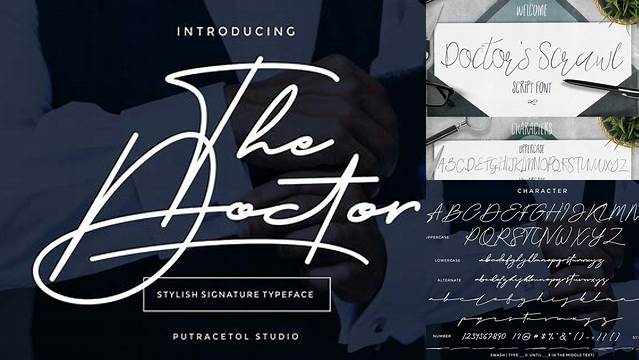
Doctor Handwriting Font Generator: Free & Realistic
Hey guys! Ever wondered how to create that illegible, yet somehow authoritative, doctor's handwriting? Well, you're in luck! We're diving deep into the world of doctor handwriting font generators, exploring how to get that authentic look for free. Letβs get started!
Understanding the Allure of Doctor Handwriting
Why are we so fascinated by doctor handwriting? Is it the mystery, the implied intelligence, or just the sheer unreadability? Whatever the reason, the distinctive style has become a cultural icon. A doctor handwriting font generator lets you tap into that mystique. You can now craft humorous memes, create unique invitations, or even design novelty documents with a touch of medical flair. Think about it β a font that instantly adds a layer of quirky authority to anything you type. This isn't just about mimicking messy writing; it's about capturing a cultural phenomenon and using it creatively.
Free Doctor Handwriting Font Generators: A Deep Dive
Alright, letβs get practical. Where can you find these free doctor handwriting font generators? The internet is your friend, but beware of shady sites! Look for reputable font websites that offer a preview of the font before you download it. Many sites offer fonts that closely resemble the stereotypical doctor's scrawl, allowing you to test them out before committing. Be sure to check the licensing terms β some fonts are free for personal use but require a commercial license for business applications. Exploring different generators and comparing their outputs will help you find the perfect font to match your desired level of unreadability. Remember, the goal is authenticity β you want it to look like a real doctor wrote it, not a robot!
How to Use a Doctor Handwriting Font Effectively
So you've got your font β now what? Using a doctor handwriting font effectively is all about context. Slapping it on a serious business proposal probably isn't the best idea. However, it can be hilarious for party invitations, gag gifts, or even as a quirky element in a personal blog. Think about the message you're trying to convey. Are you aiming for humor, nostalgia, or a touch of irreverence? The font should complement the overall tone and purpose of your content. Don't overuse it β a little goes a long way. A full document in doctor handwriting might be overwhelming and, ironically, less impactful than a strategically placed headline or quote.
Creating Realistic Doctor Handwriting: Tips and Tricks
Want to take your doctor handwriting game to the next level? Try these tips and tricks! First, consider varying the font size slightly to mimic the natural inconsistencies of handwriting. Add a touch of slant or tilt to your text for a more authentic look. Experiment with different levels of boldness or weight to create emphasis. You can even introduce subtle imperfections, such as slightly uneven spacing or overlapping letters. These small details can make a huge difference in the overall realism of your generated handwriting. Remember, real handwriting isn't perfect, so embrace the imperfections to achieve a truly convincing effect.
Doctor Handwriting Font for Medical Professionals: Ethical Considerations
Now, let's talk about ethics. If you're a medical professional, using a doctor handwriting font to create official documents is generally a bad idea. Clarity and accuracy are paramount in healthcare, and deliberately making your writing illegible could have serious consequences. However, there might be appropriate uses in internal communications, training materials, or even as a fun element in a staff newsletter. The key is to consider the potential impact on your audience and ensure that your use of the font doesn't compromise patient safety or professional standards. When in doubt, err on the side of clarity and legibility.
The Psychology Behind Illegible Handwriting
Ever wonder why doctor's handwriting is so notoriously bad? There are a few theories. Some say it's due to the sheer volume of notes they have to take, leading to rushed and sloppy writing. Others suggest it's a form of shorthand developed over years of medical training. And then there's the more cynical view that it's a deliberate attempt to keep patients in the dark! Whatever the reason, the phenomenon has a psychological impact. Illegible handwriting can create a sense of mystery and authority, making the writer seem more knowledgeable and important. It can also be frustrating and confusing, leading to misinterpretations and errors.
Doctor Handwriting Font vs. Cursive: What's the Difference?
While both can be difficult to read, doctor handwriting font and cursive aren't the same. Cursive is a specific style of handwriting where letters are connected, while doctor handwriting font is more of a general term for messy, illegible writing often associated with medical professionals. A doctor handwriting font might incorporate elements of cursive, but it's typically characterized by its lack of clarity and consistent form. Think of it this way: cursive is a deliberate style of writing, while doctor handwriting is often the result of speed, pressure, and perhaps a touch of caffeine.
Doctor Handwriting Font and Pop Culture
Doctor handwriting has become a staple in pop culture, often used for comedic effect. You'll see it in movies, TV shows, and cartoons, typically as a shorthand for complex medical jargon or as a visual gag about the unreadability of doctor's notes. This cultural representation reinforces the stereotype and contributes to the enduring fascination with doctor handwriting. The font itself has become a shorthand, instantly conveying a sense of medical authority (or at least, the appearance of it).
Doctor Handwriting Font for Graphic Design
Looking to add a unique touch to your graphic design projects? A doctor handwriting font can be a surprisingly effective tool. Use it sparingly to create eye-catching headlines, add a touch of whimsy to your illustrations, or even design custom logos with a medical theme. The key is to use it strategically and in a way that complements the overall design aesthetic. Don't be afraid to experiment with different font sizes, colors, and placements to achieve the desired effect. A well-placed doctor handwriting font can add a layer of visual interest and intrigue to your designs.
Doctor Handwriting Font and Classroom Use
In the classroom, using a doctor handwriting font can be a creative way to engage students, especially in subjects like history or literature where handwritten documents were common. It can add a touch of authenticity to assignments or presentations, making the learning experience more immersive. However, ensure that the font is used sparingly and is accompanied by clear and legible text for students who may have difficulty reading it. Use it as a supplemental tool to enhance the learning experience without compromising accessibility.